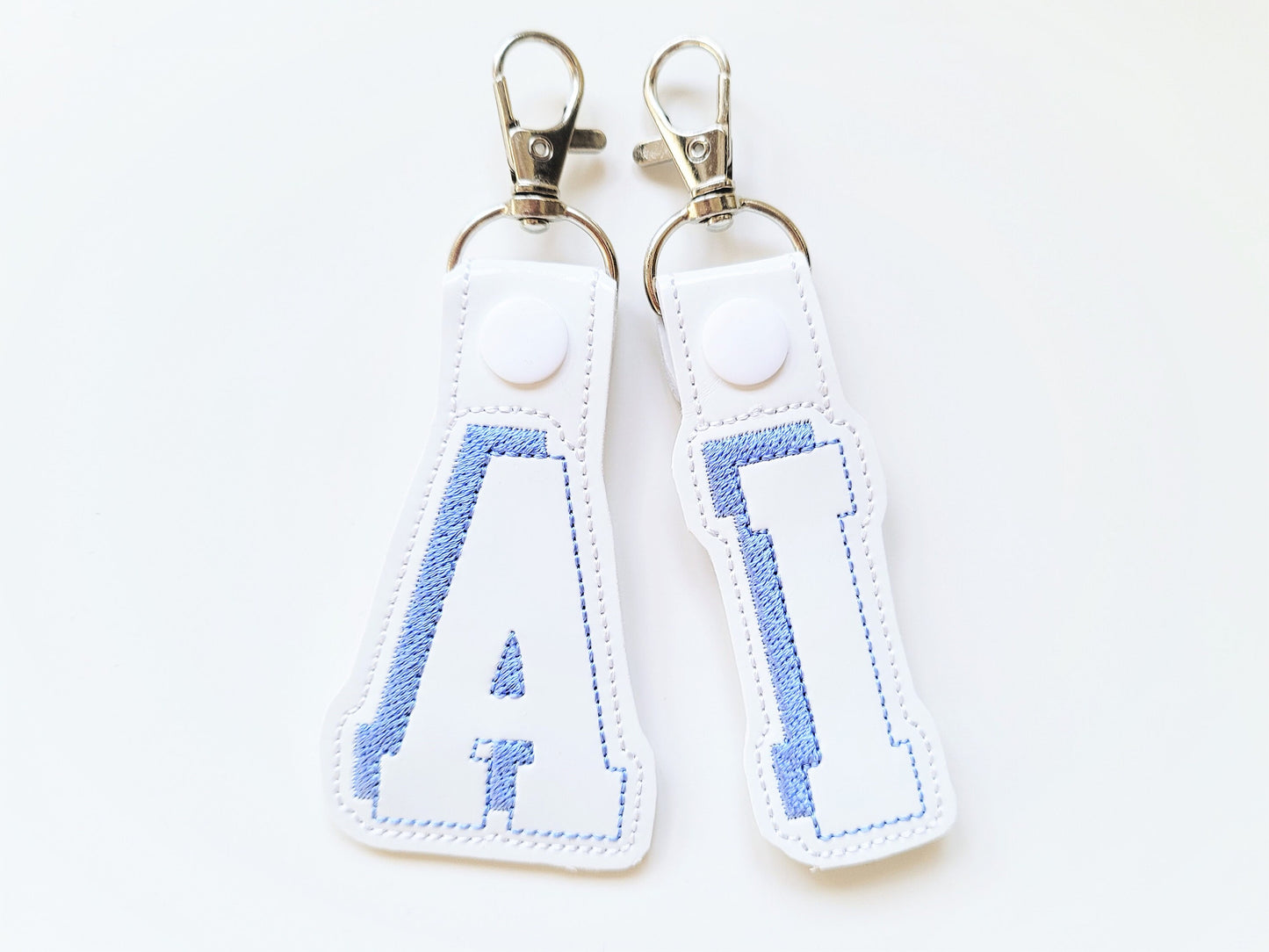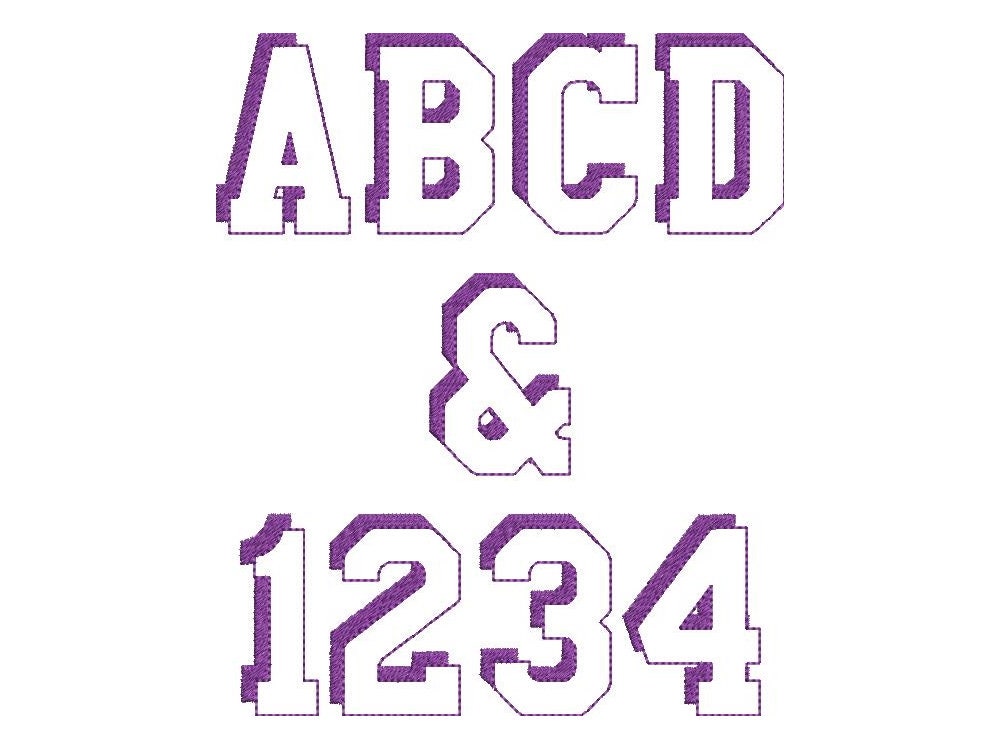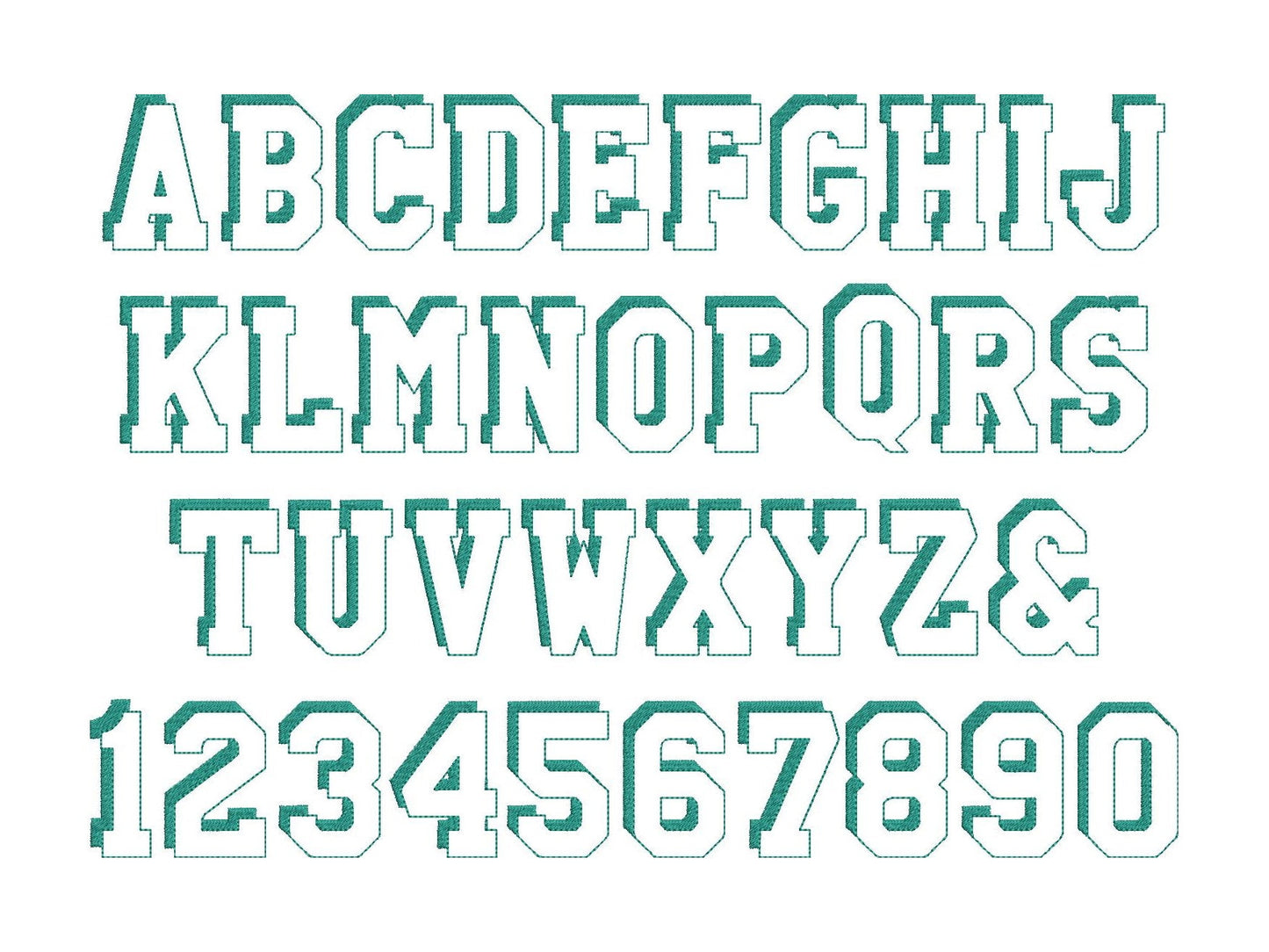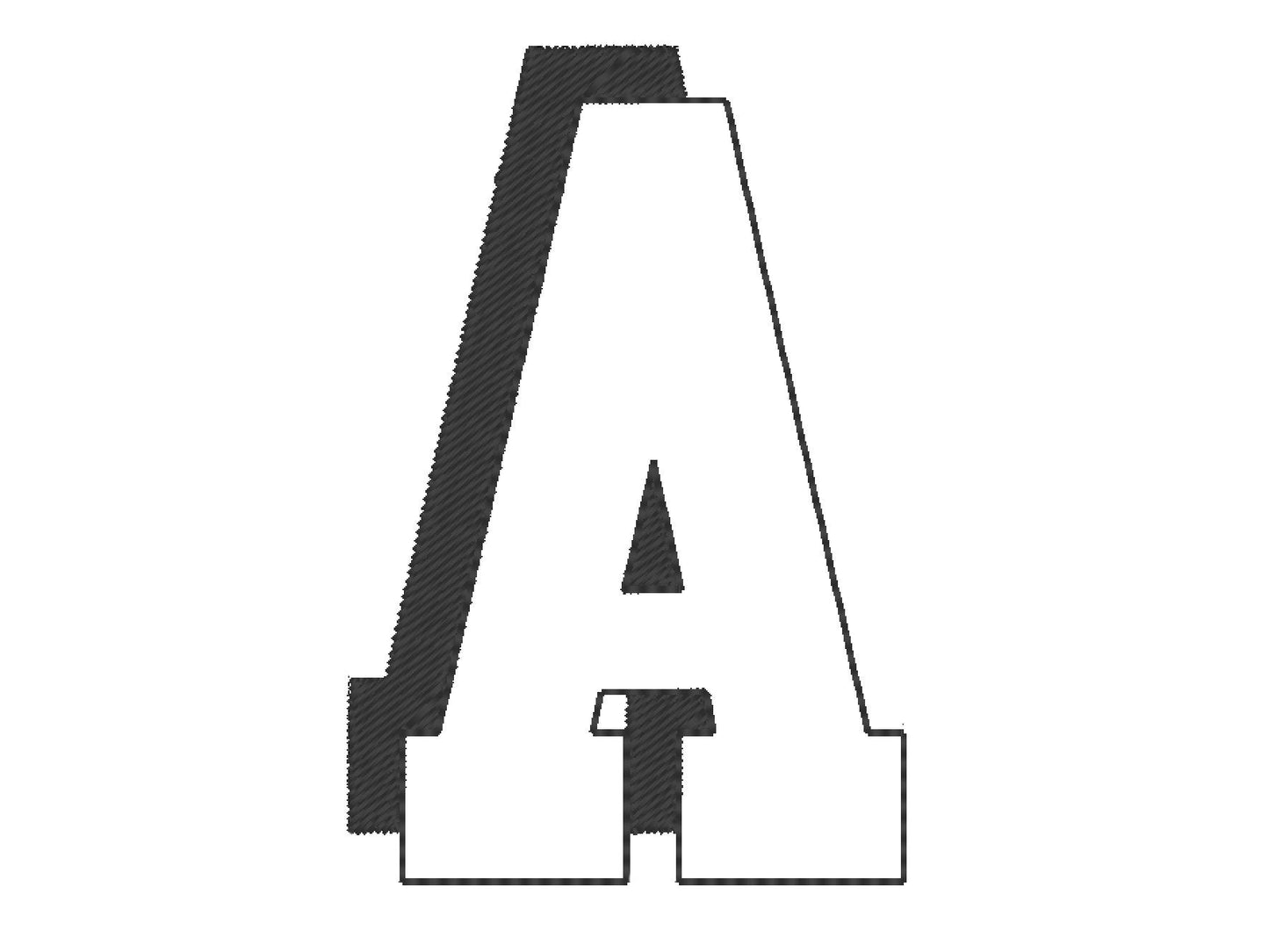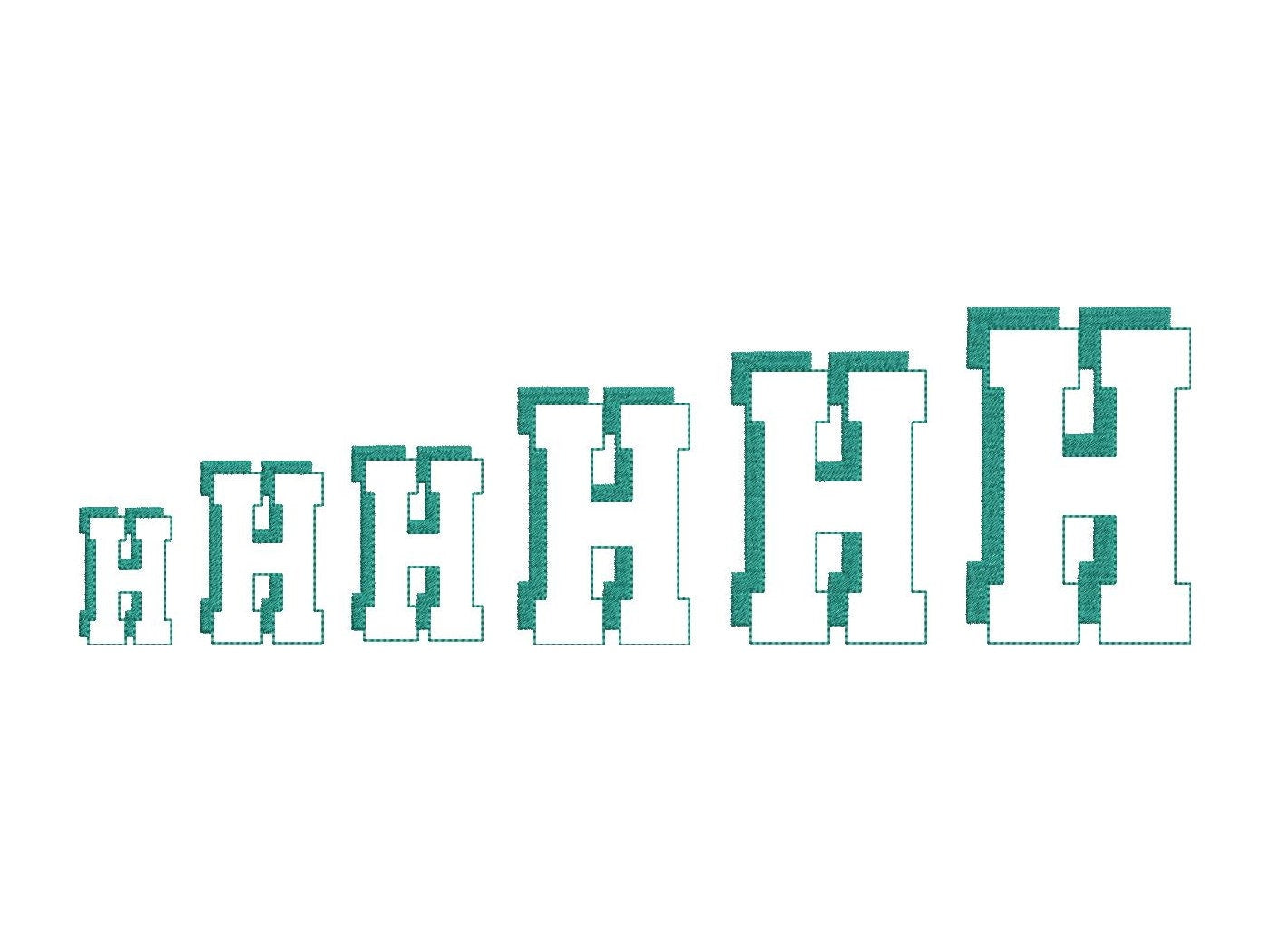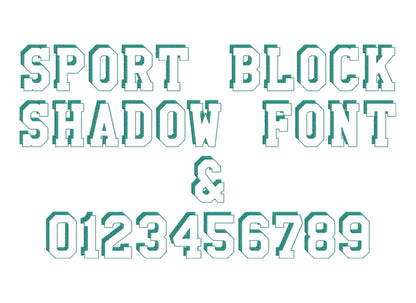
Sport Block Shadow Light Font
Or click to open the linkA sport block font with a shadow and see-through letters. Great for team shirts, jerseys, caps and school spirit wear.
Capital letters A to Z, numbers 0 to 9 and an ampersand, in six sizes: 1.5, 2, 2.5, 3, 3.5 and 4 inches. Each letter has a fill stitch shadow and an outline, and the fabric shows through the middle.
- Sport block shadow font
- Capital letters A-Z, numbers 0-9, ampersand
- 6 sizes, 1.5 to 4 in